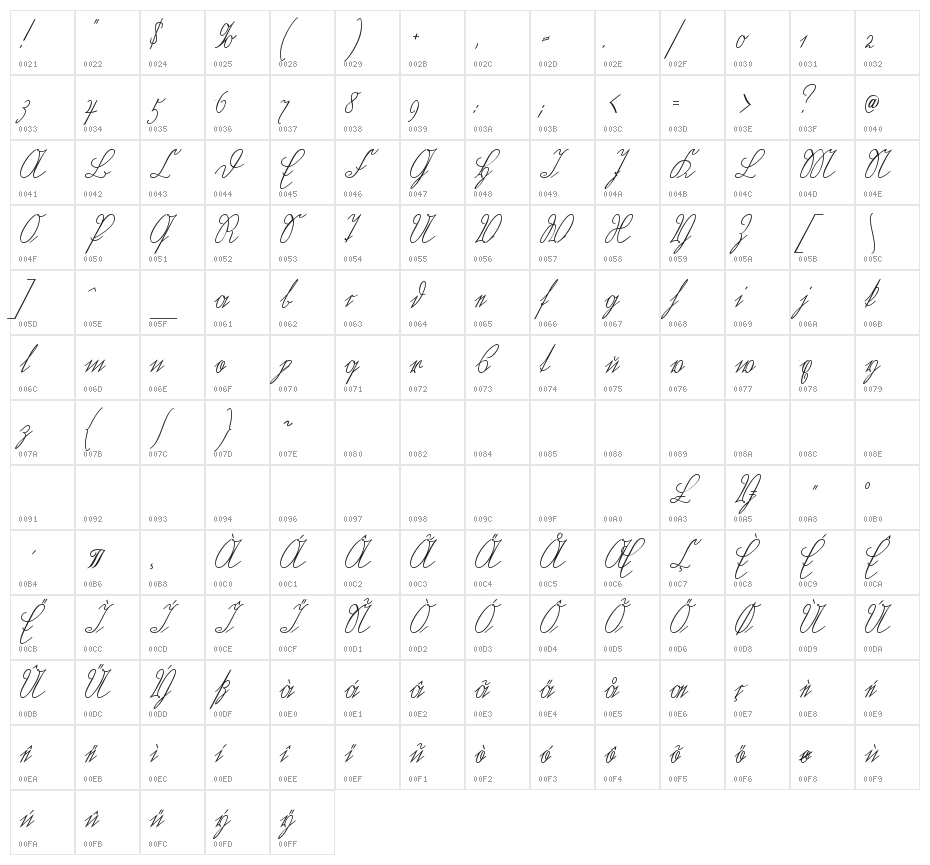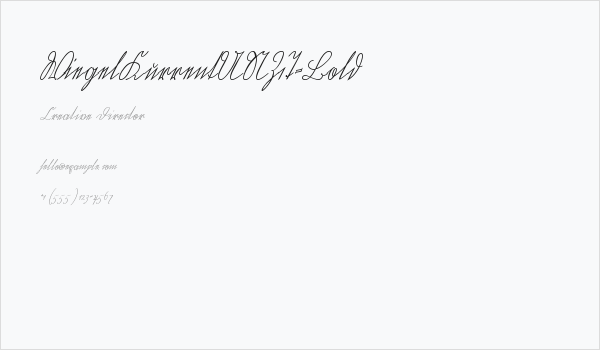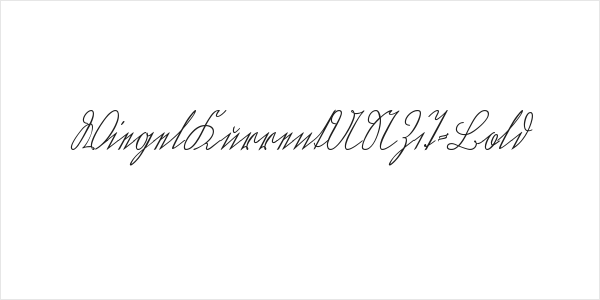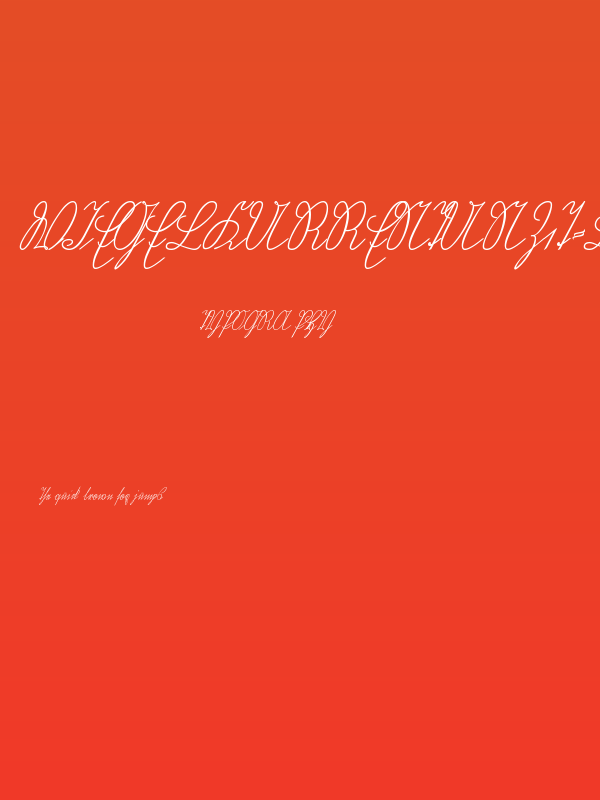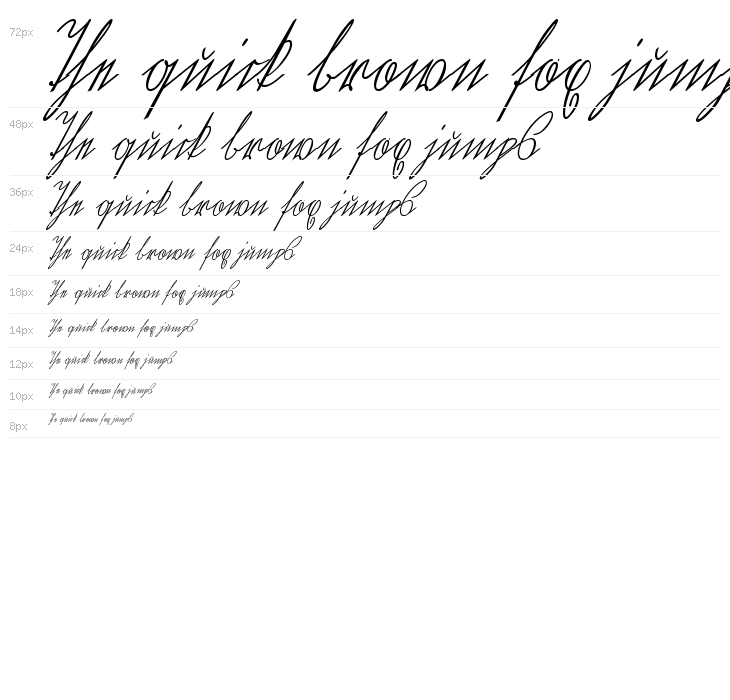
WiegelKurrentUNZ1T-Bold Font
This font is a beautifully intricate script style that embodies the elegance of traditional calligraphy. Each character flows seamlessly into the next, creating a continuous, fluid motion that is both graceful and sophisticated. The strokes are delicate yet confident, with a slight slant that adds to its dynamic appearance. The uppercase letters are ornate, featuring elaborate loops and swirls, while the lowercase letters maintain a more restrained elegance. Numbers and special characters are crafted with the same attention to detail, ensuring a cohesive look throughout. This font is perfect for projects that require a touch of classic refinement and artistic flair.
| Proposed Projects | Ideal for wedding invitations, formal event programs, elegant branding, and artistic projects requiring a classic touch. |